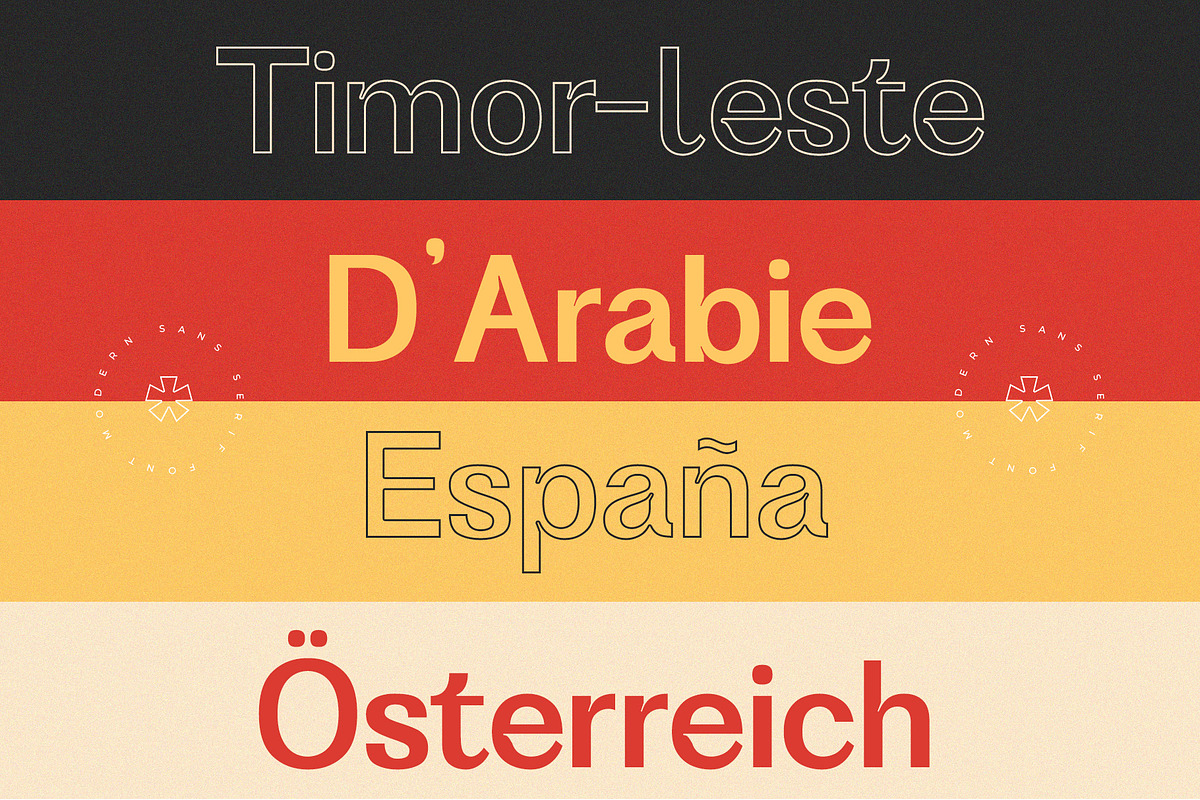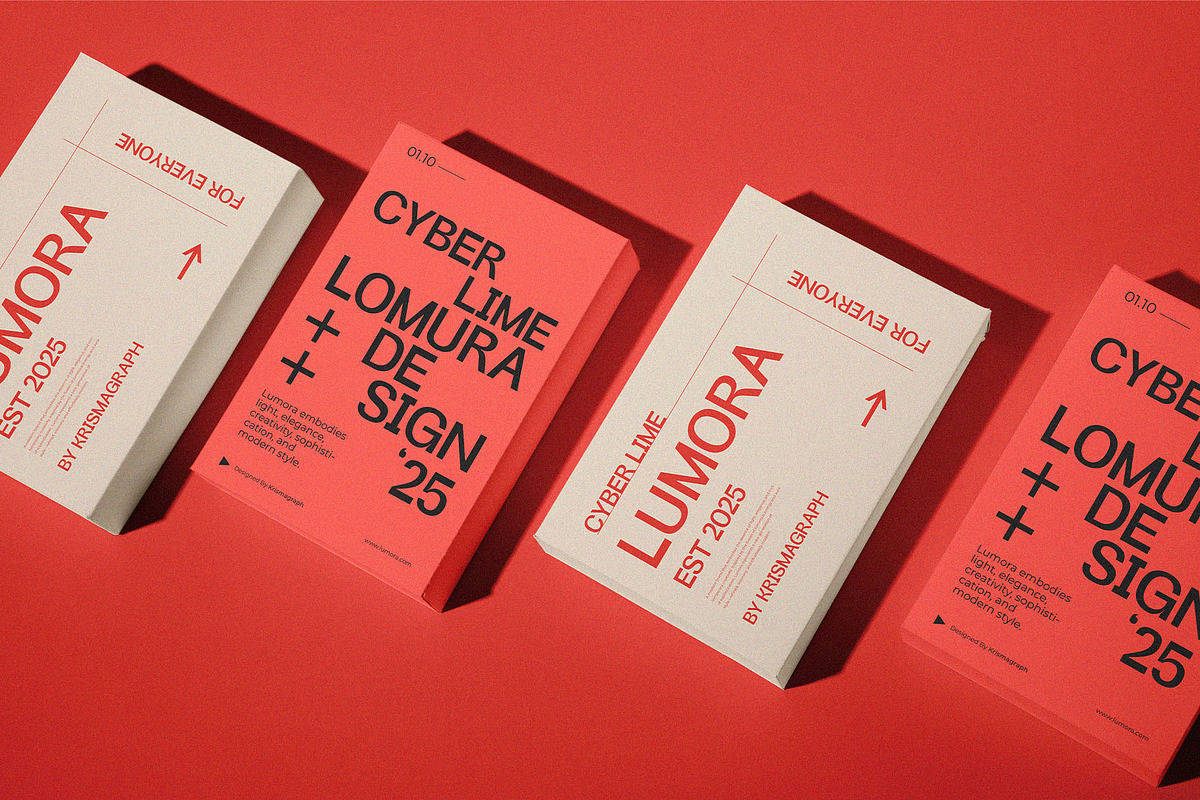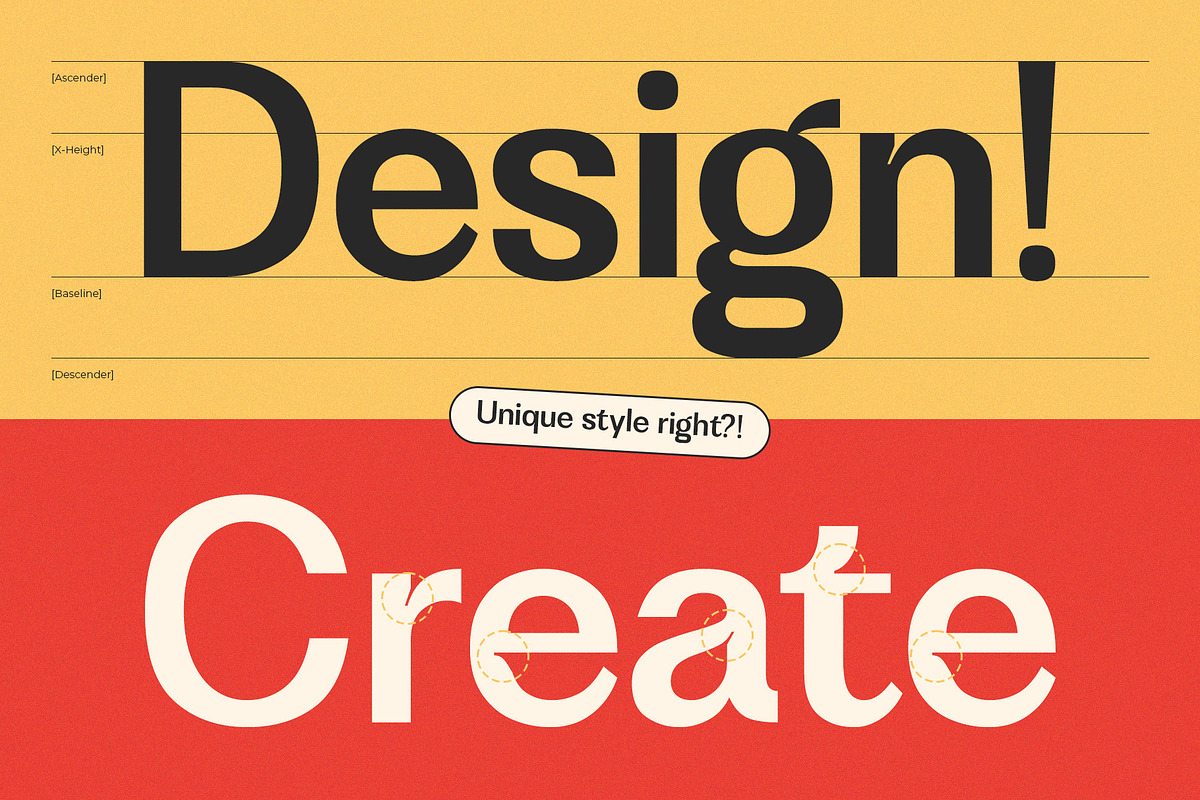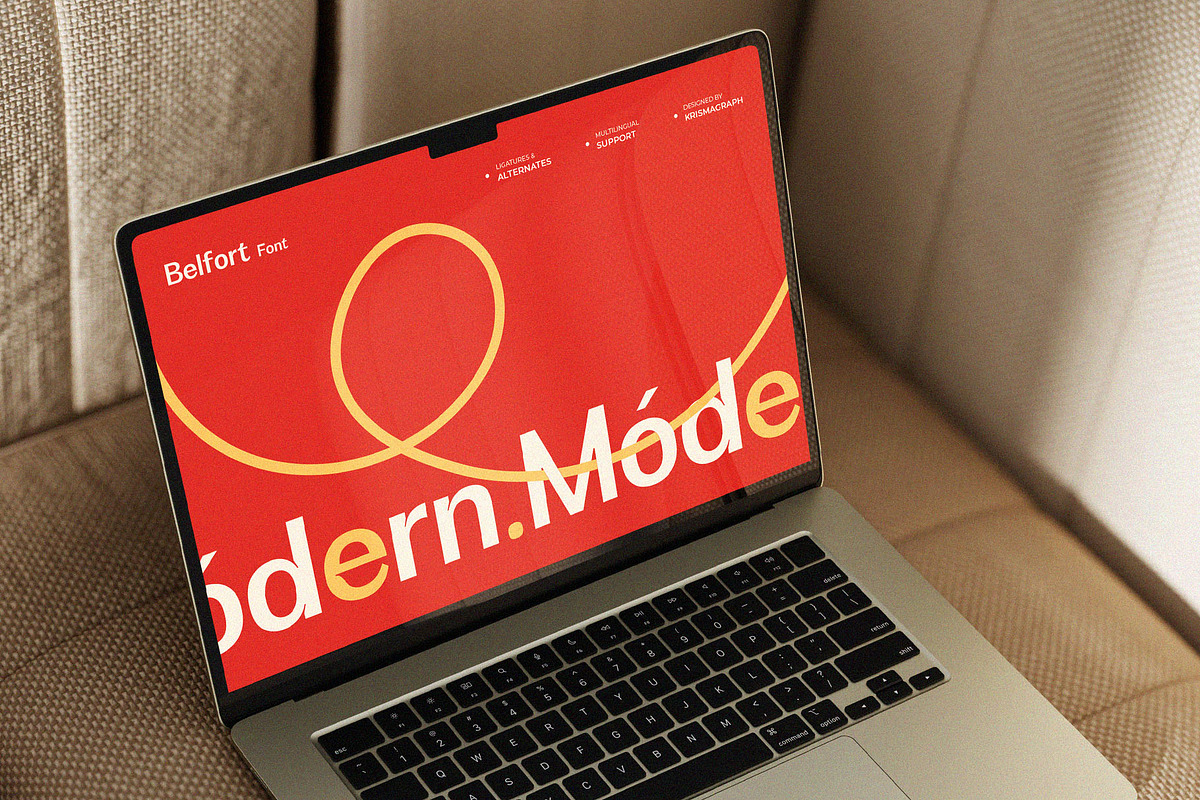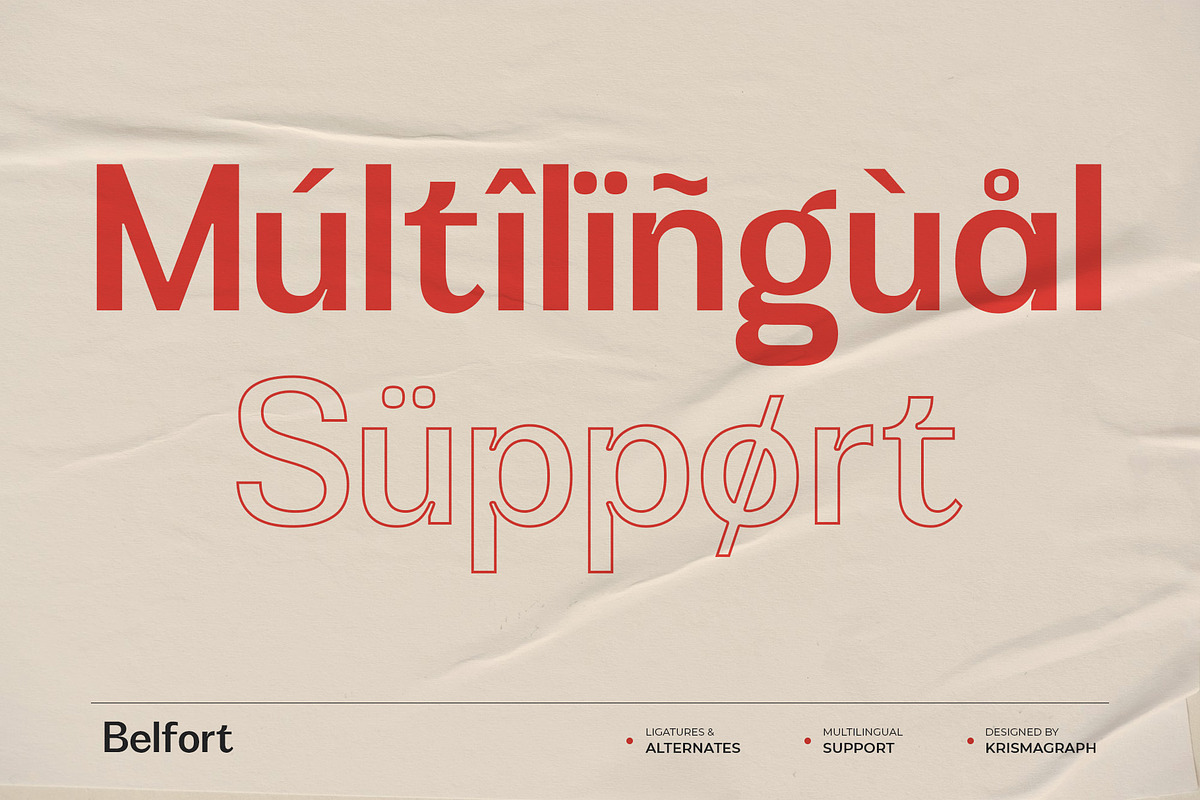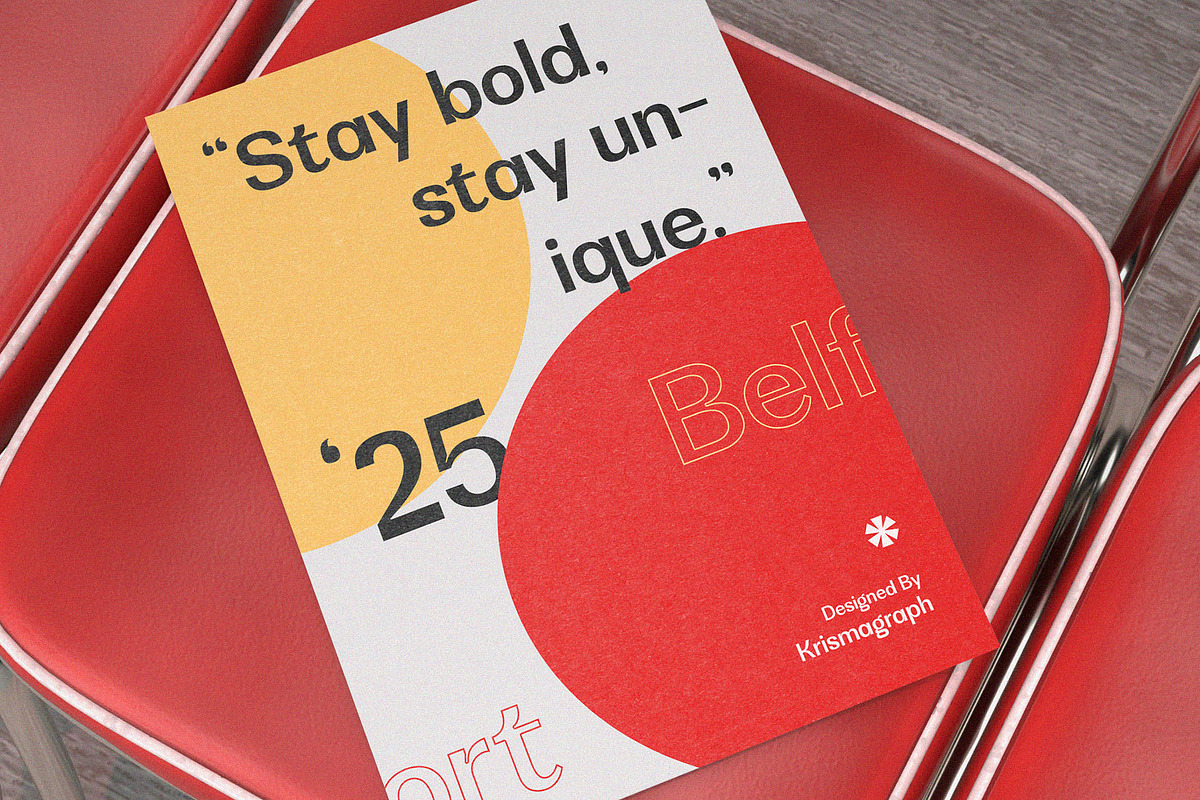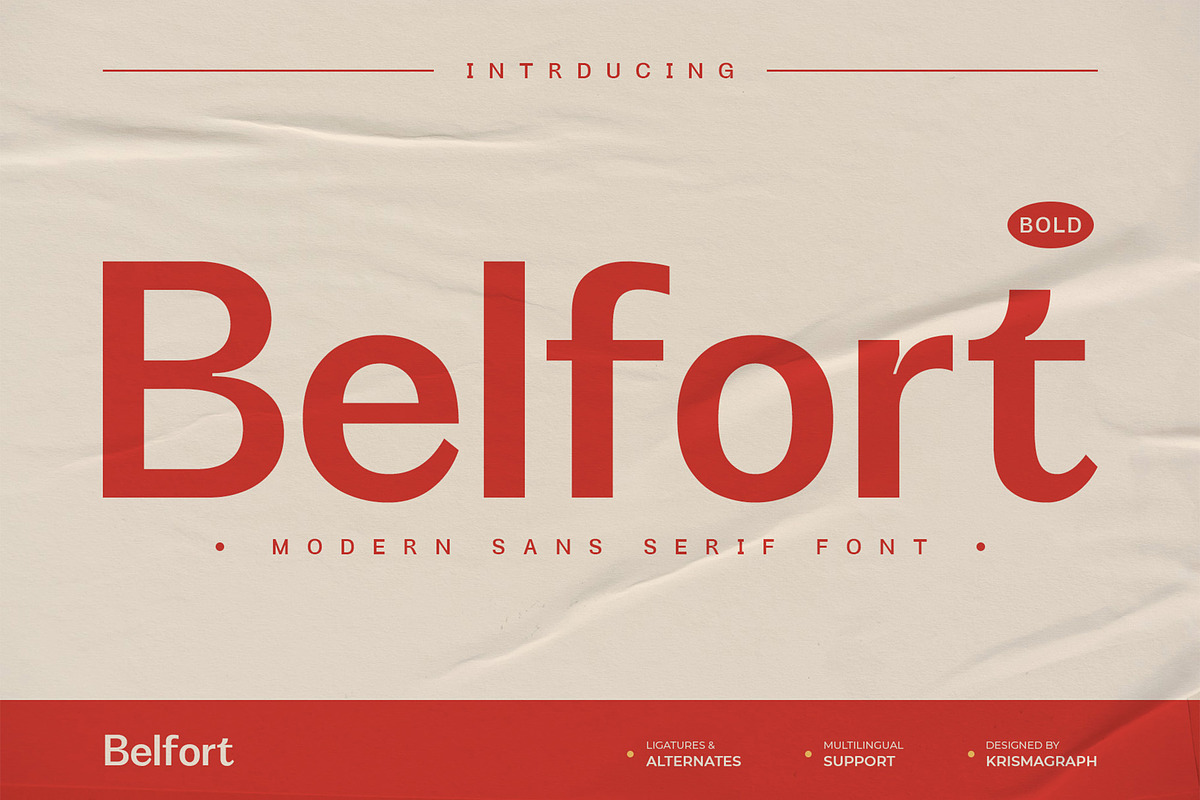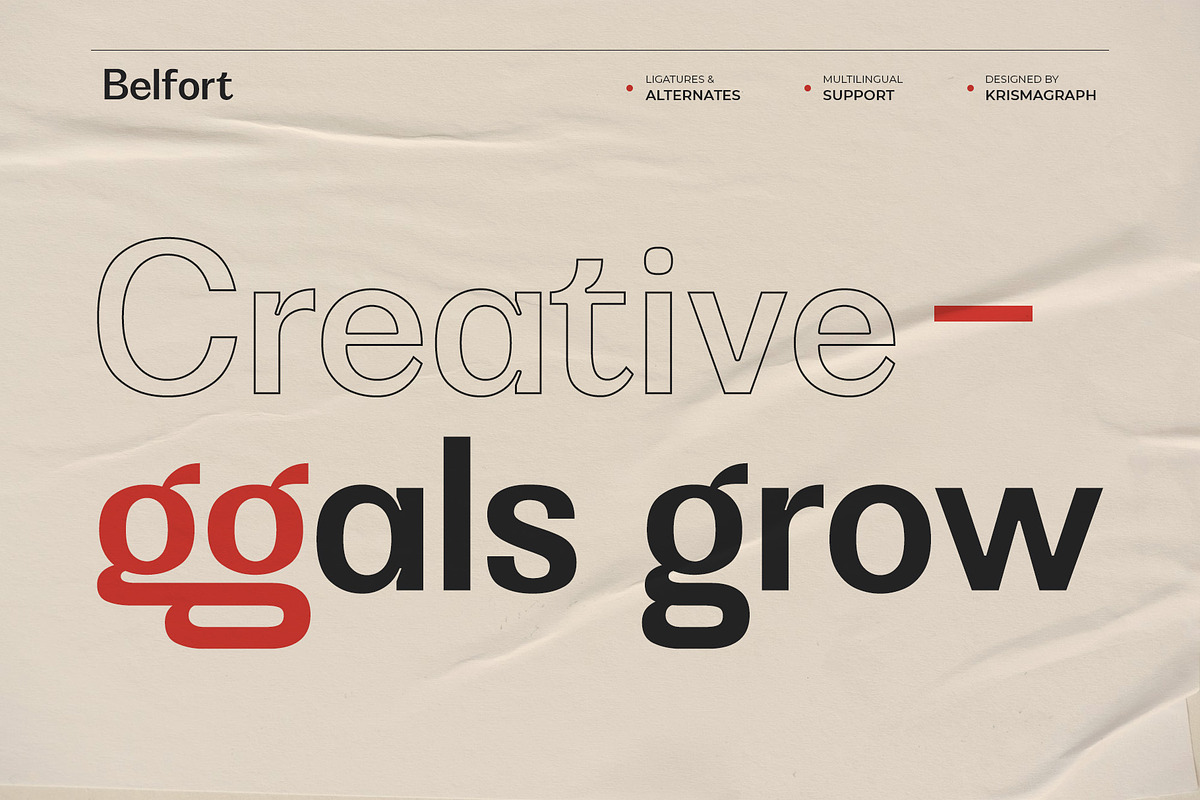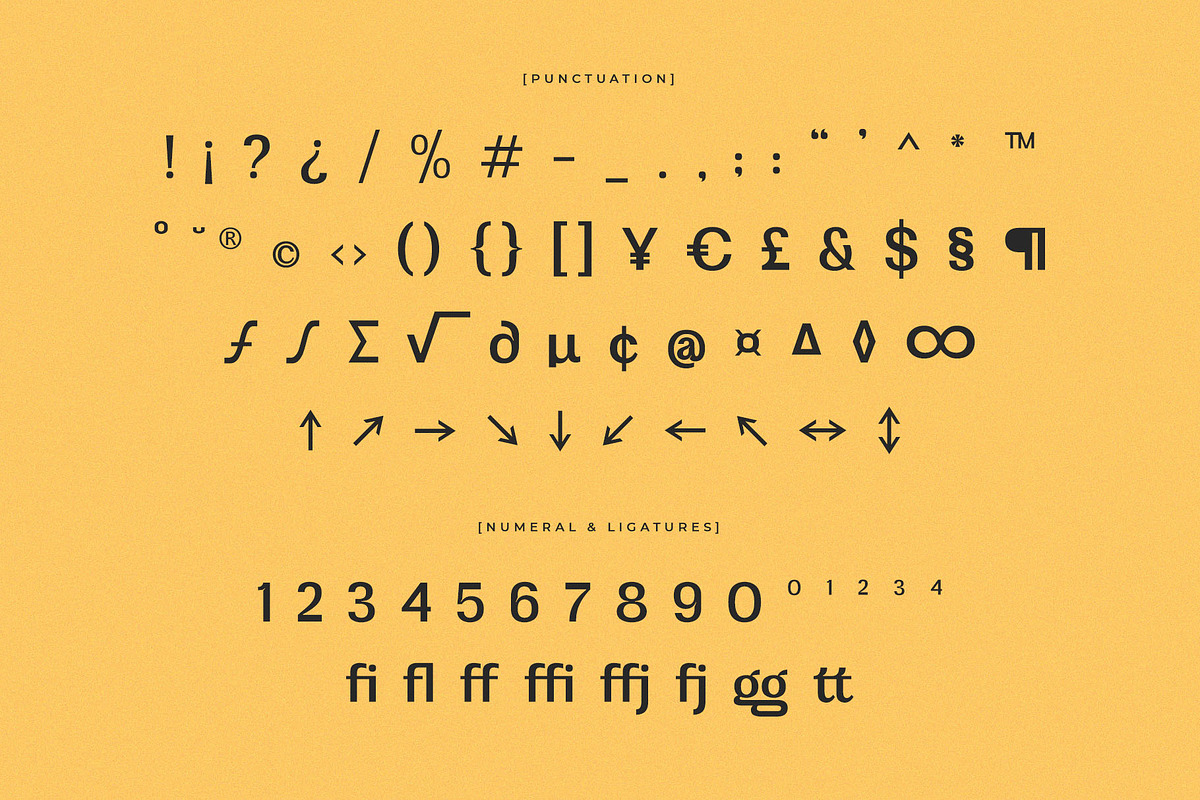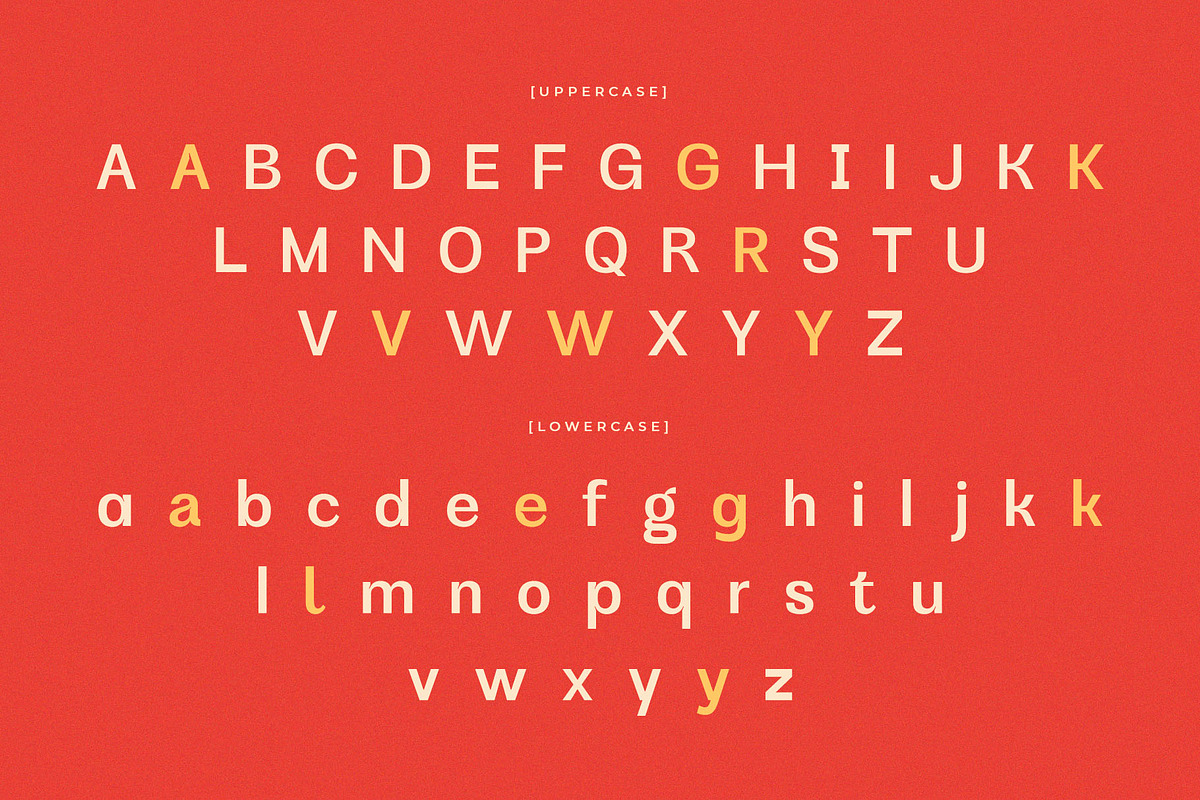
Belfort Bold | Modern Sans
Belfort Bold is a modern sans serif font with a neo-Grotesk touch, it is a sans serif typeface that tends to be easily accepted by readers, has wide usage possibilities, and shows a simple, bold, and strong personality. With ligatures and alternating in several letters. and is equipped with a multilingual accent.
- Number & punctuation
- Ligature & alternates
Belfort can easily be incorporated into a variety of projects, so add it to your creative ideas and see how to make it stand out!